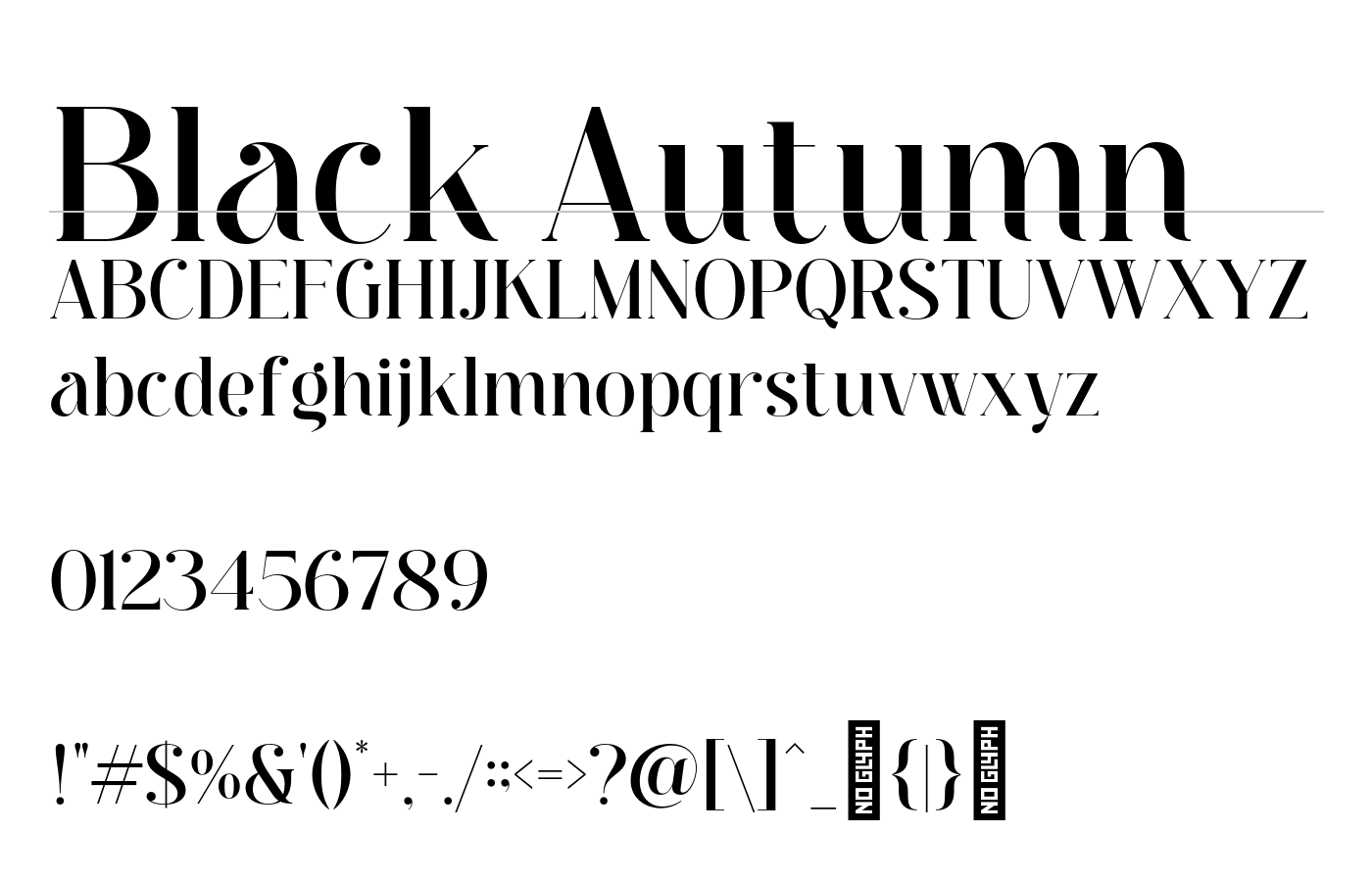
Black Autumn is an elegant serif font with a modern Didone style, featuring high contrast between its thick and thin strokes and thin, unbracketed serifs. Its tall, condensed letterforms with unique details like the single-story lowercase 'a' and distinct tail on 'Q' give it a sophisticated and refined look, perfect for luxury branding, editorial headlines, and stylish packaging. This font works best in large sizes where its dramatic contrasts and sleek, artistic curves can shine and capture attention.
Black Autumn Font
About Black Autumn Font
| Font family | Black Autumn Font |
| Designer | Brandsemut |